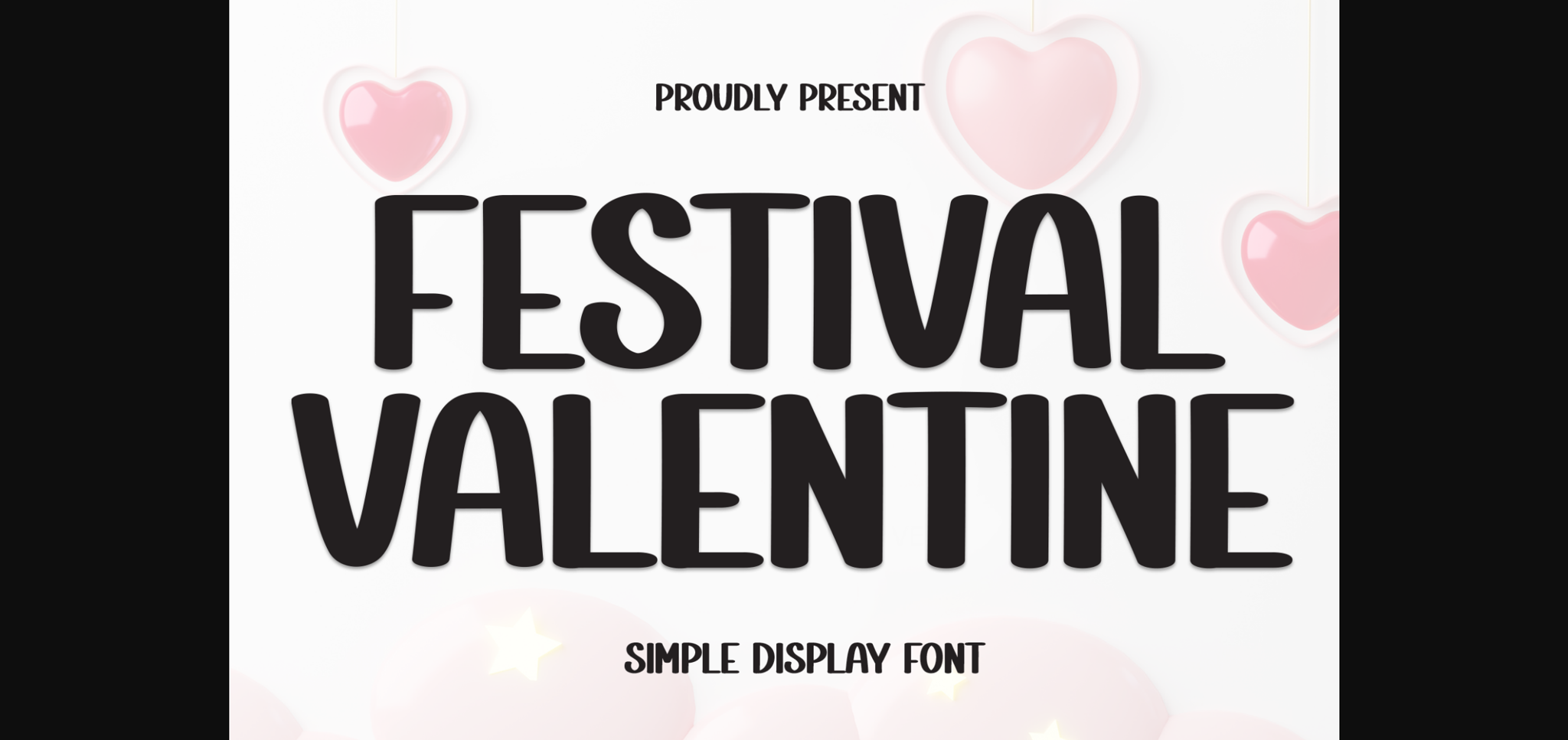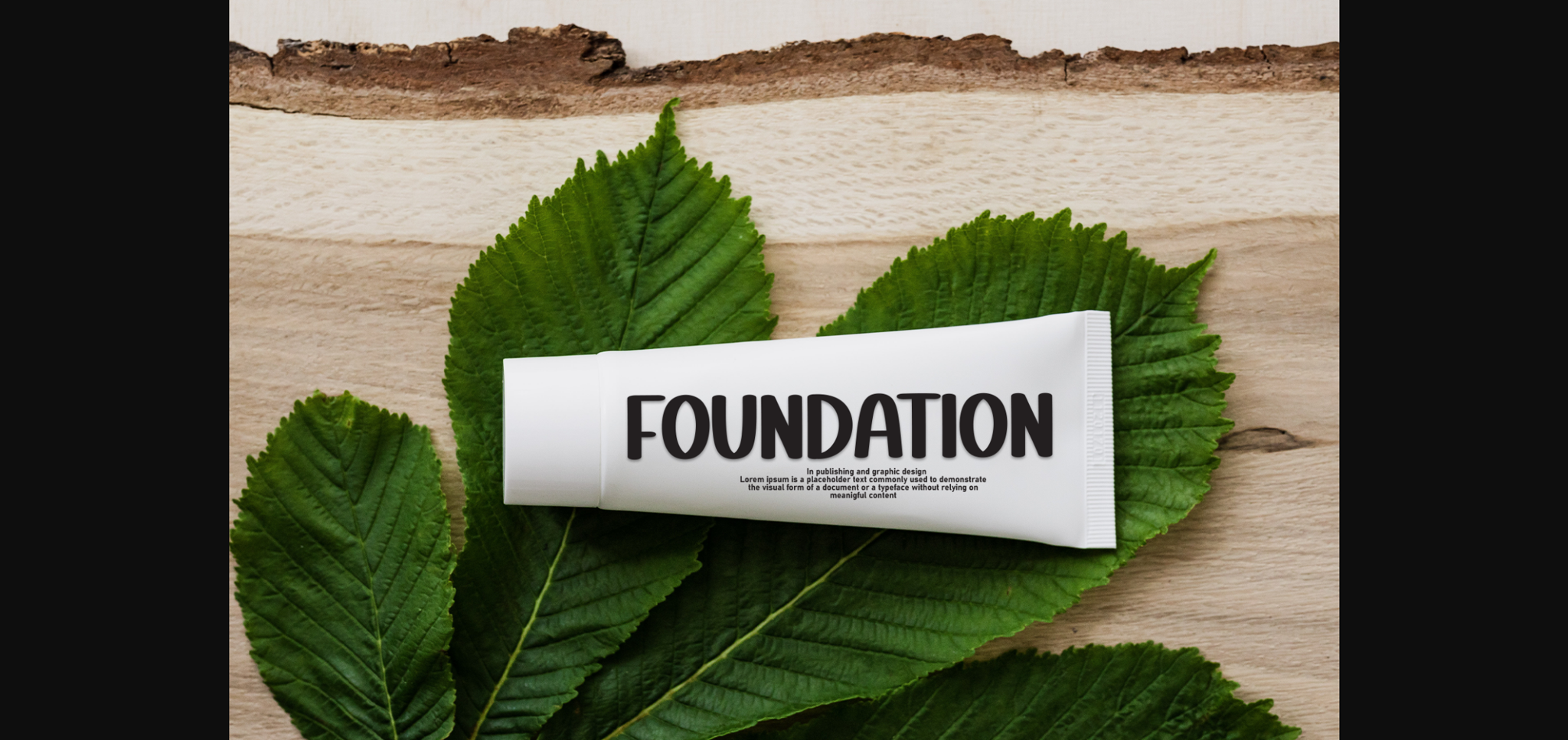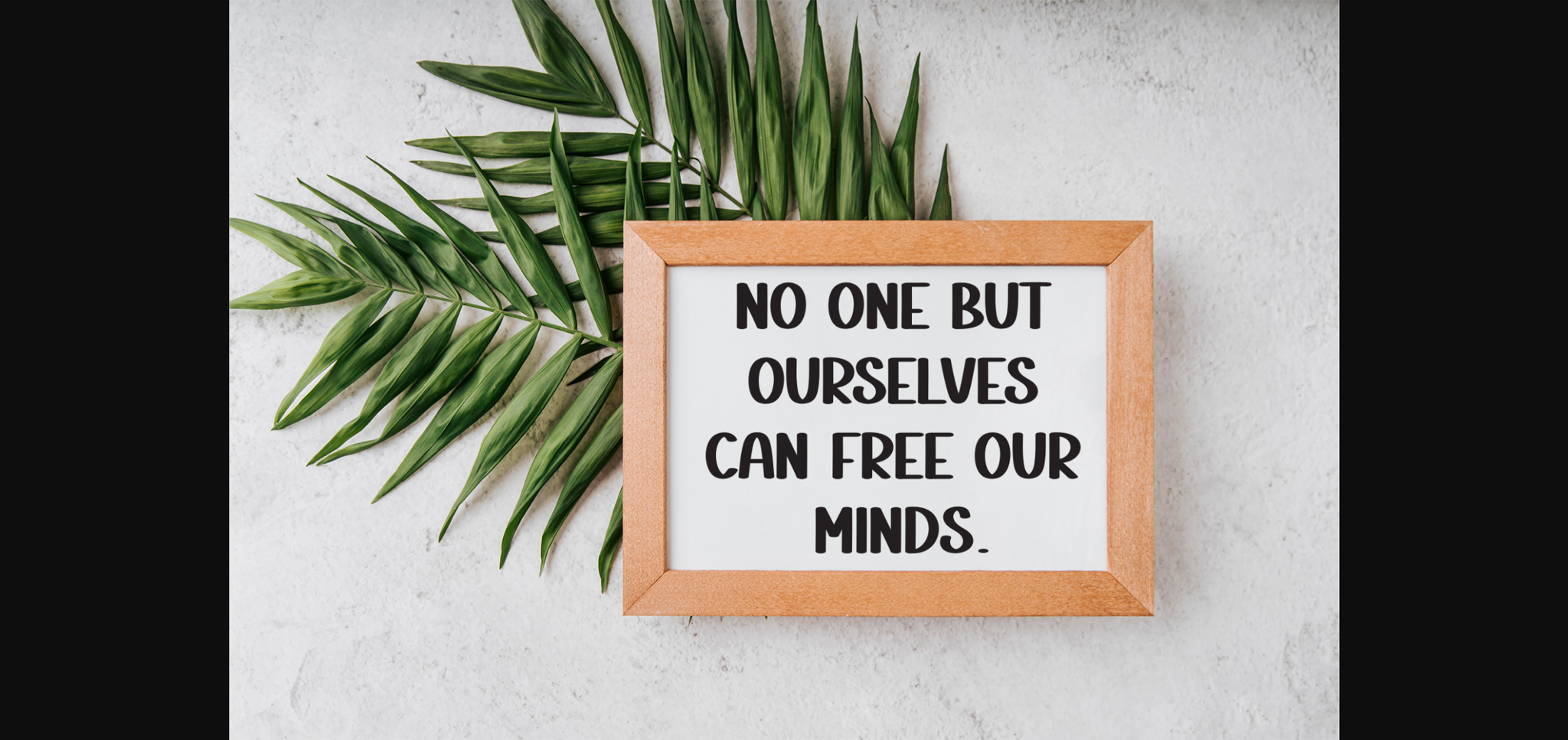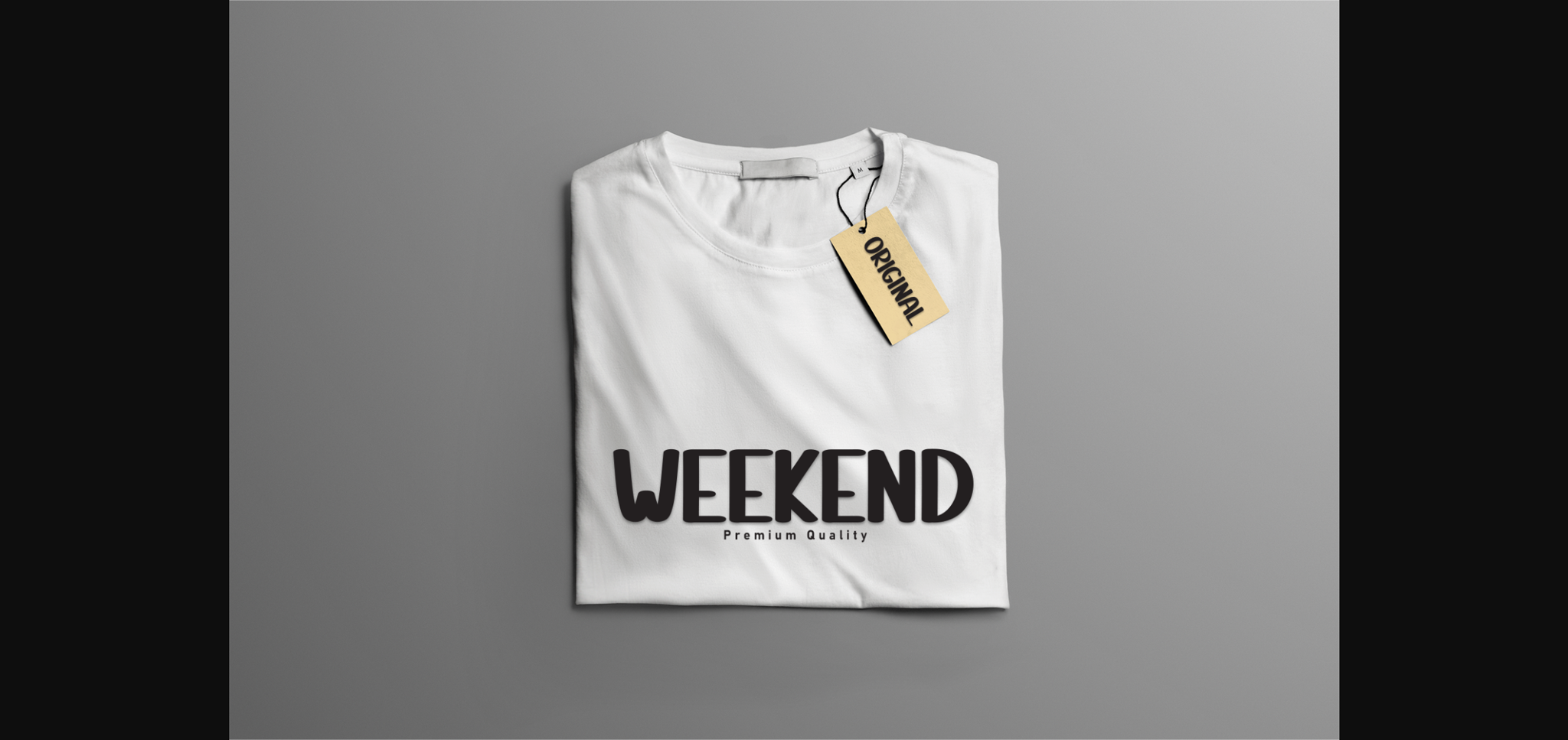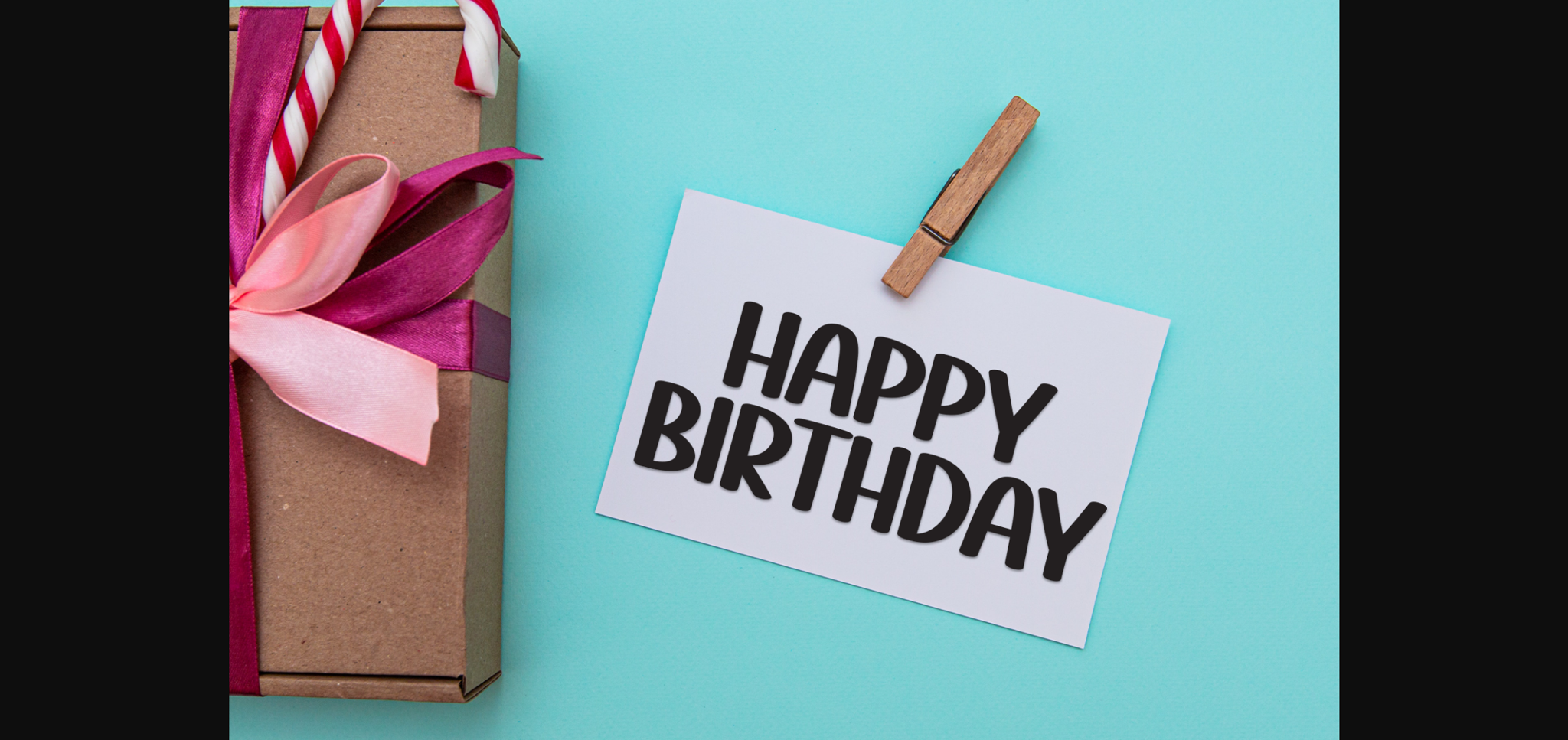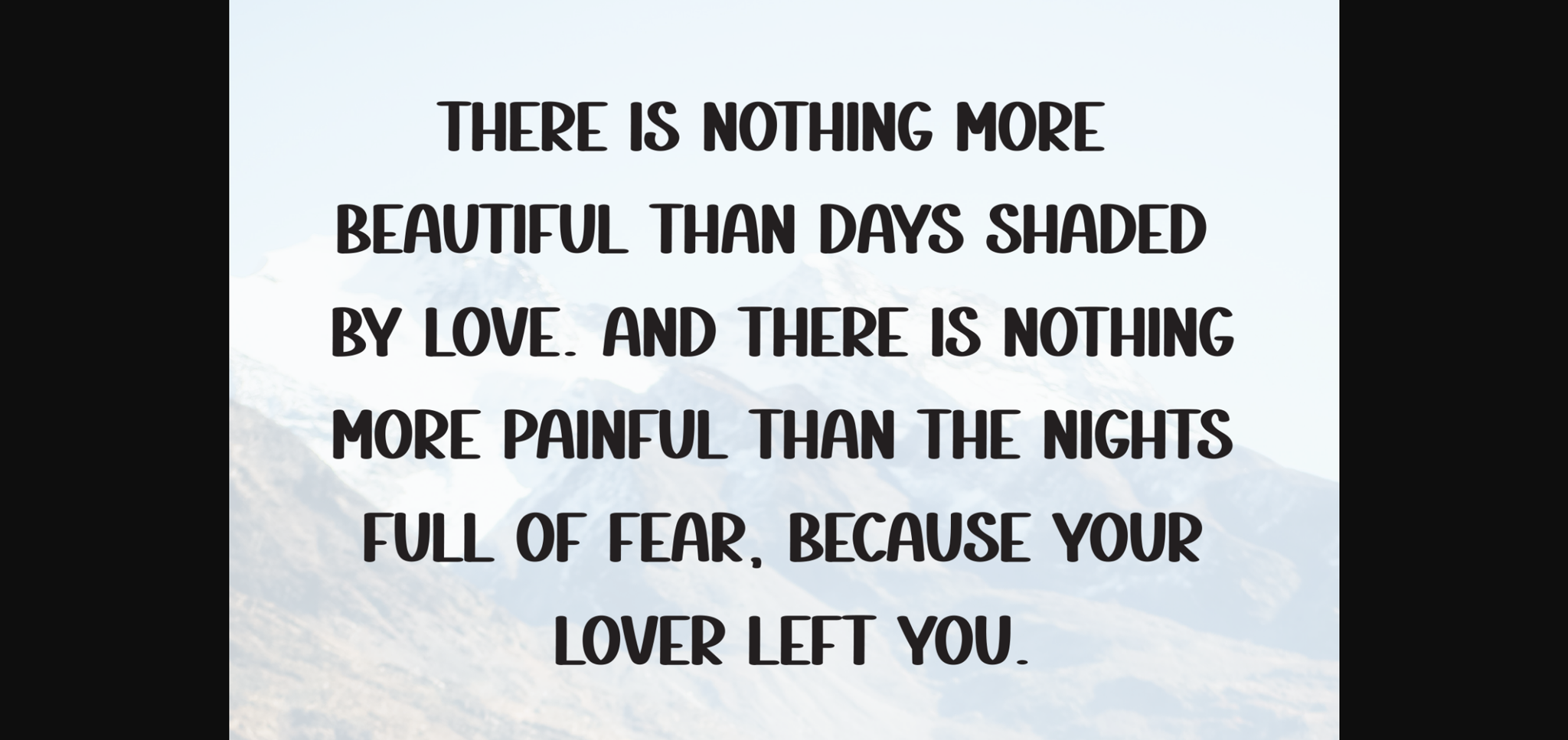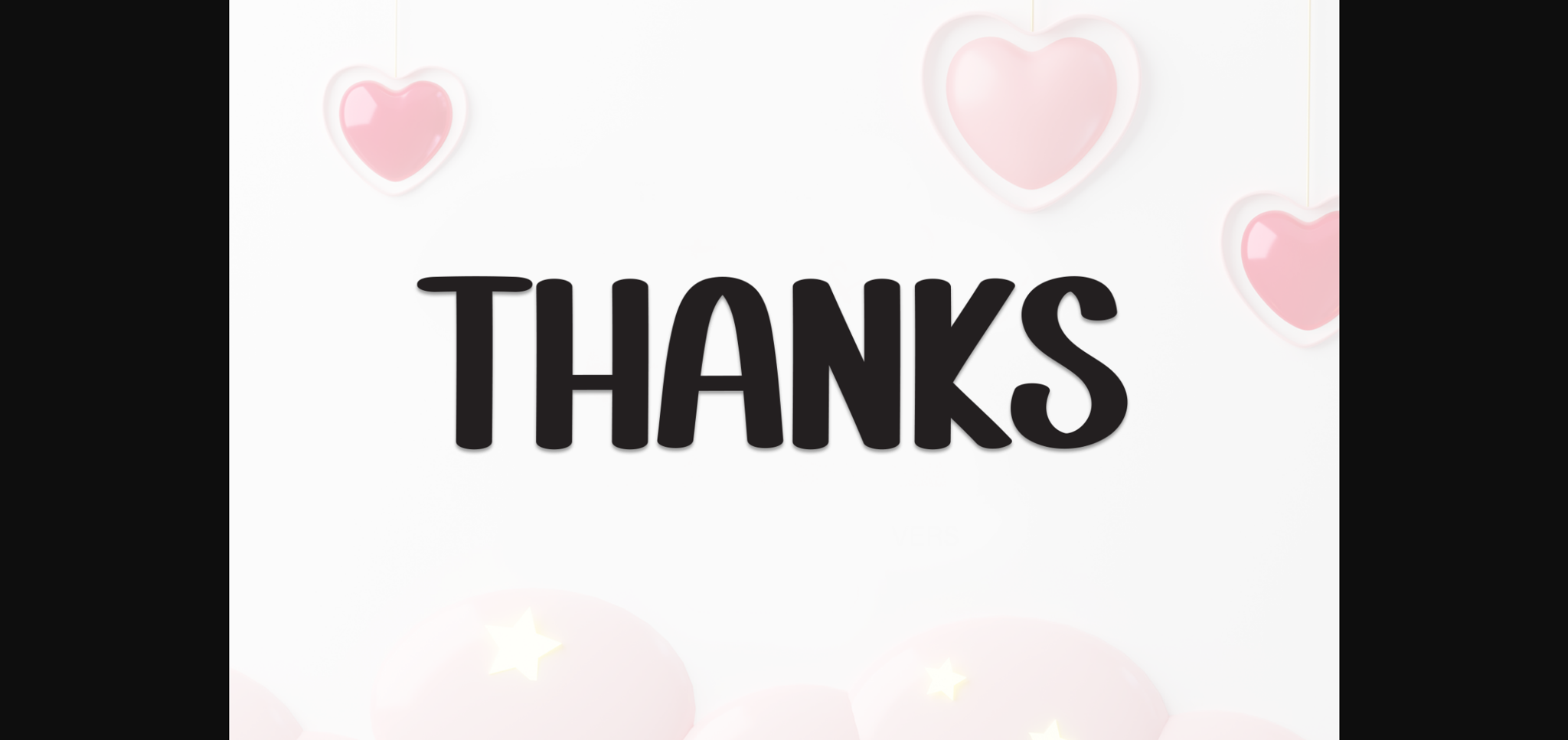
Festival Valentine Font
Festival Valenitne is a lovely and timeless handwritten font. It is the best choice for creating eye catching logos, branding and quotes. Every letter has a unique and beautiful touch, which will make your design come alive!